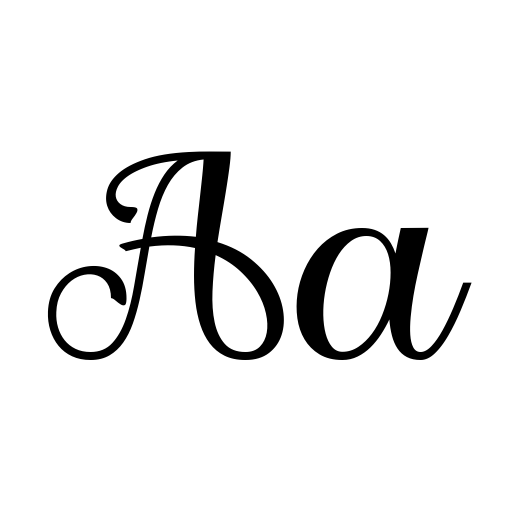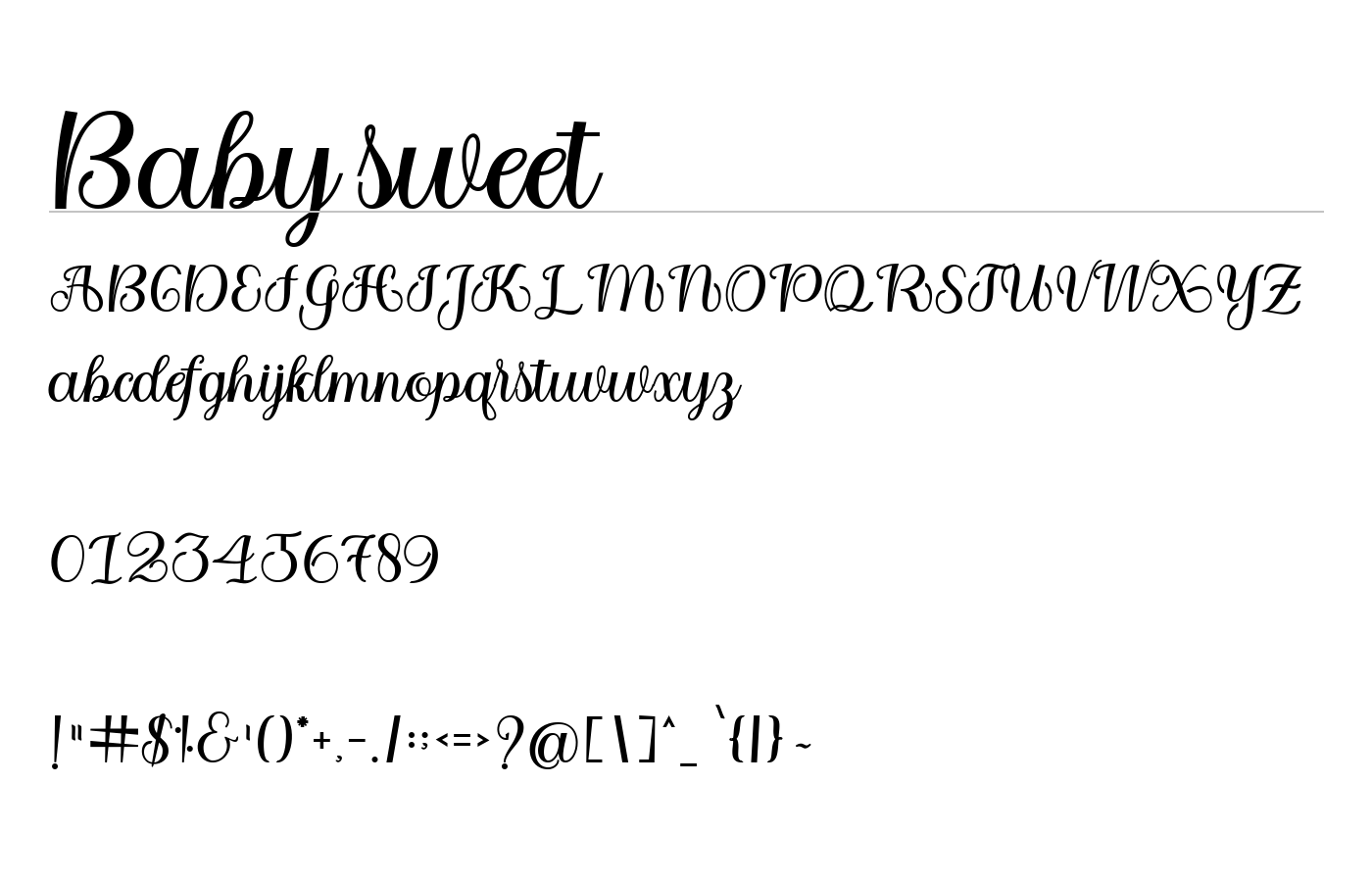
Baby Sweet is a delicate and elegant script font with a light weight and graceful, flowing strokes that create a refined, vintage-inspired feel. Its tall, slender letterforms and charming cursive style make it ideal for projects that want to convey sophistication and warmth, such as invitations, branding for beauty or fashion, and stylish editorial designs. The font’s unique combination of soft curves and decorative details adds a personal, handcrafted touch that works beautifully in both display and decorative text settings.
Baby sweet Font
About Baby sweet Font
| Font family | Baby sweet Font |